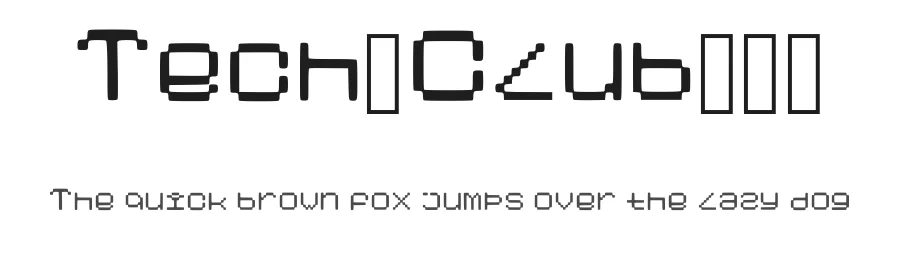
About Matrix Mono Font
Matrix Mono is a display font. It includes 285 glyphs, a regular weight, TTF (TrueType) format, and 216 languages. Matrix Mono is free to download; check the license details on this page before commercial use. Display fonts like Matrix Mono work best for logos, posters, headlines, and eye-catching social media graphics.
Matrix Mono supports 216 languages.
Matrix Mono Font is a display font that shines as a display or heading face. Pair it with a clean sans-serif or serif font for body text โ the contrast creates a clear hierarchy while the two styles stay balanced and easy to read.
Matrix Mono Font
Matrix Mono Font is a display typeface, ideal for logos, invitations, branding, and creative projects.